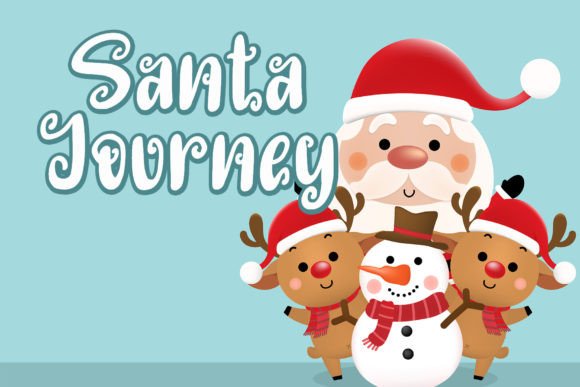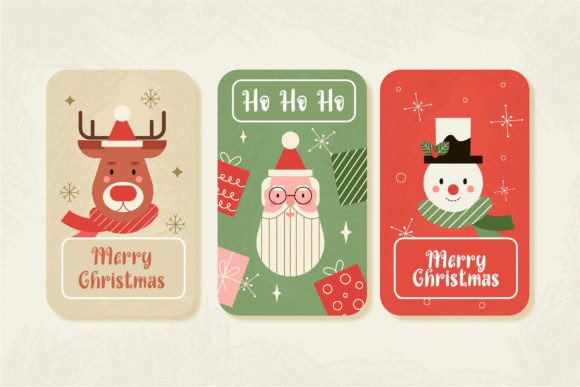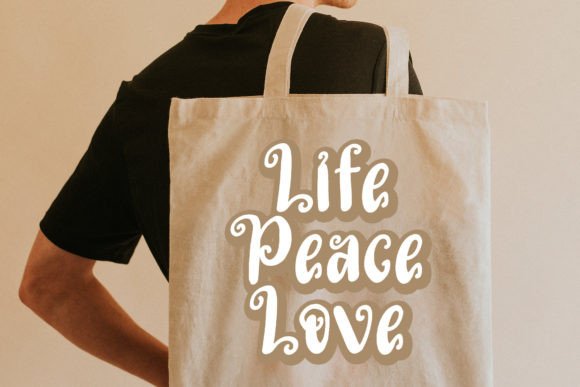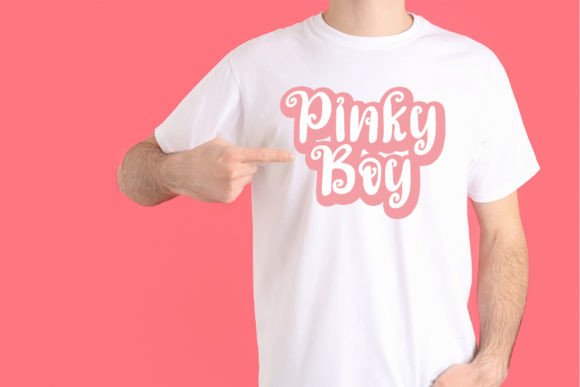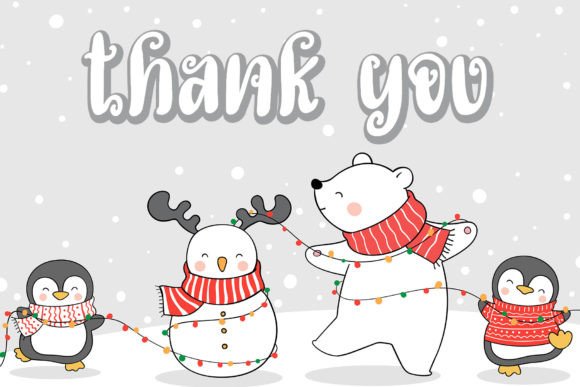
A Festive Font for the Family: Introducing Christmas Family Font
Who hasn’t spent hours browsing through font libraries, searching for the perfect match to capture the magic of the holiday season? I know I have. It was during one such browsing session that I stumbled upon the adorable Christmas Family Font. Its quirky charm and playful feel immediately caught my attention, and I knew I had to share it with fellow designers and crafty enthusiasts.
This delightful font, designed specifically with the holidays in mind, is perfect for any project that requires a touch of whimsy and warmth. From children’s activities and posters to packaging and school projects, Christmas Family Font is sure to bring a smile to your face and a dash of festive cheer to your design.
As a designer, you know how valuable it is to have a font that can evoke the right emotions and set the tone for your project. That’s where Christmas Family Font comes in – a true gem that’s sure to become a staple in your design arsenal this holiday season.
Christmas Family Font Key Features
• Font Family: A collection of 4 font styles (Regular, Italic, Bold, and Bold Italic) designed to evoke a sense of warmth and togetherness.
• Unique Characteristics: The font features a traditional, hand-drawn feel with intricate details and ornaments, making it perfect for holiday-themed designs, such as Christmas cards, invitations, and packaging.
Christmas Family Font Review
I recently had the chance to work with the Christmas Family Font, and I must say it’s a unique and festive addition to any holiday project. ✨ The font’s playful, handwritten feel instantly evokes a sense of warmth and cheer, making it perfect for Christmas cards, gift tags, or any other seasonal design.
• The font’s versatility shines in its ability to work well in both digital and print formats.
• It’s a great option for creating a cohesive look across various design elements, from headings to body text.
• The font’s cursive script makes it ideal for adding a personal touch to your holiday designs.
However, there are a few limitations to keep in mind. ⚠️ The font’s size can become somewhat illegible when used in smaller text sizes, and it may require some adjustments to ensure readability.
Overall, I’m impressed with the Christmas Family Font’s potential to elevate holiday designs. While it may have some limitations, its unique character and versatility make it a great addition to any designer’s toolkit.
The Christmas Family Font is ideal for creating festive holiday graphics, cards, and invitations. You can use it to create custom titles, headings, and body text for your designs. Some popular use cases include:
• Christmas card designs
• Holiday party invitations
• Festive social media graphics
• Christmas-themed blog posts and articles
To get the most out of the Christmas Family Font, try combining it with other festive graphics and elements, such as holly, snowflakes, and Christmas trees. Experiment with different font sizes, colors, and styles to create a unique and eye-catching design. Don’t be afraid to mix and match different fonts and graphics to create a cohesive and festive look.